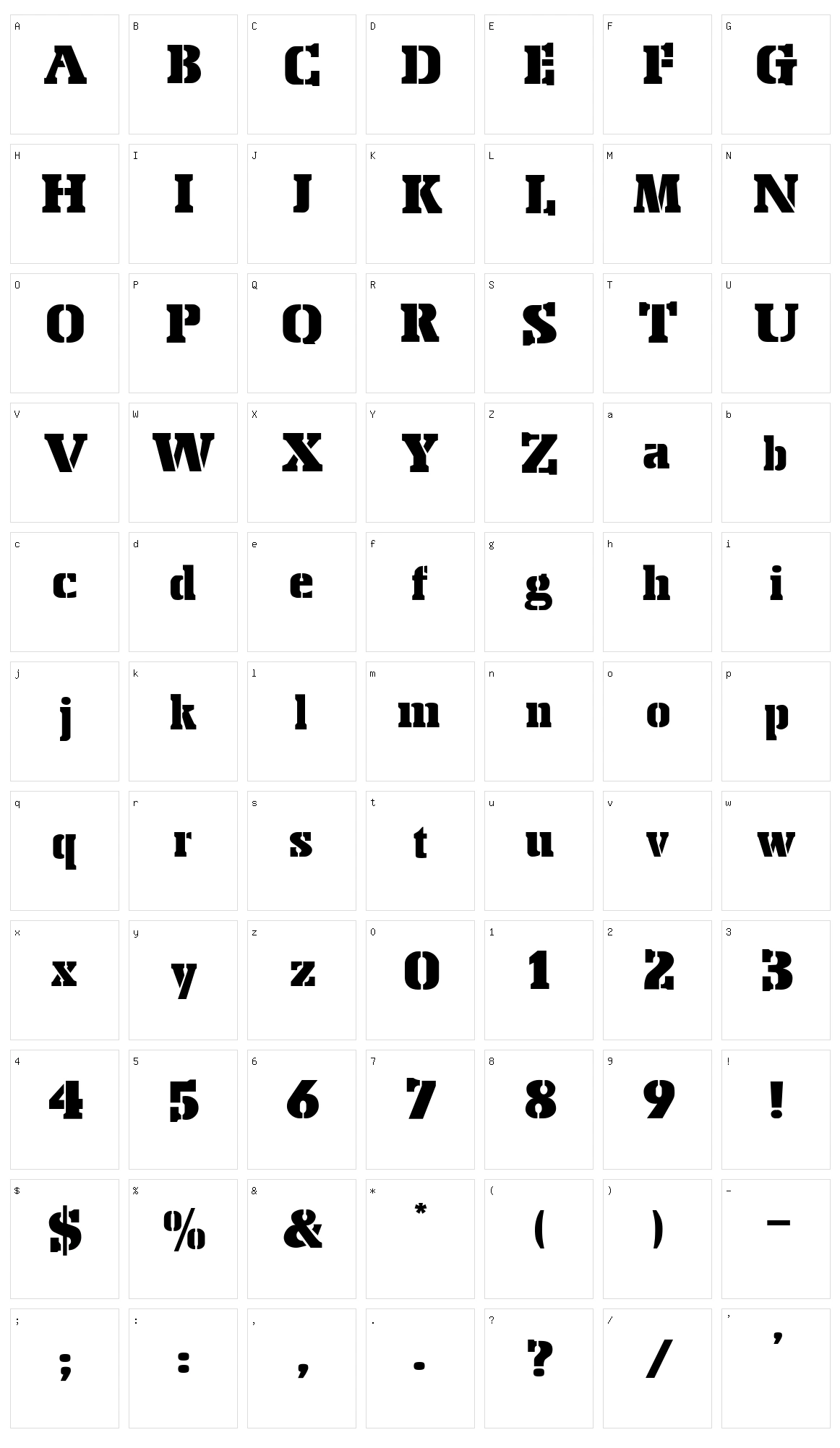
The free font Stencil Export is carefully designed by Allen R. Walden, showcasing a thoughtful balance of creativity and usability and falls under the Stencil font style. When you download the ZIP file, it contains only 15.32 KB of font files, making it lightweight and quick to download. Please review the license details below to understand permitted usage and distribution rights. If license information is not available, we recommend using this font for personal projects only or contacting the author directly for commercial usage permissions.